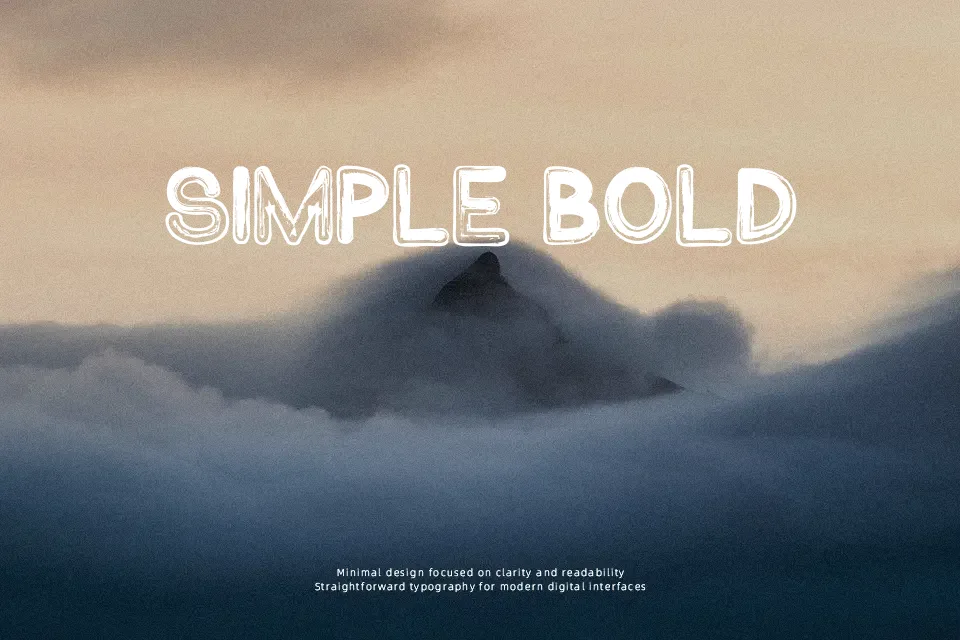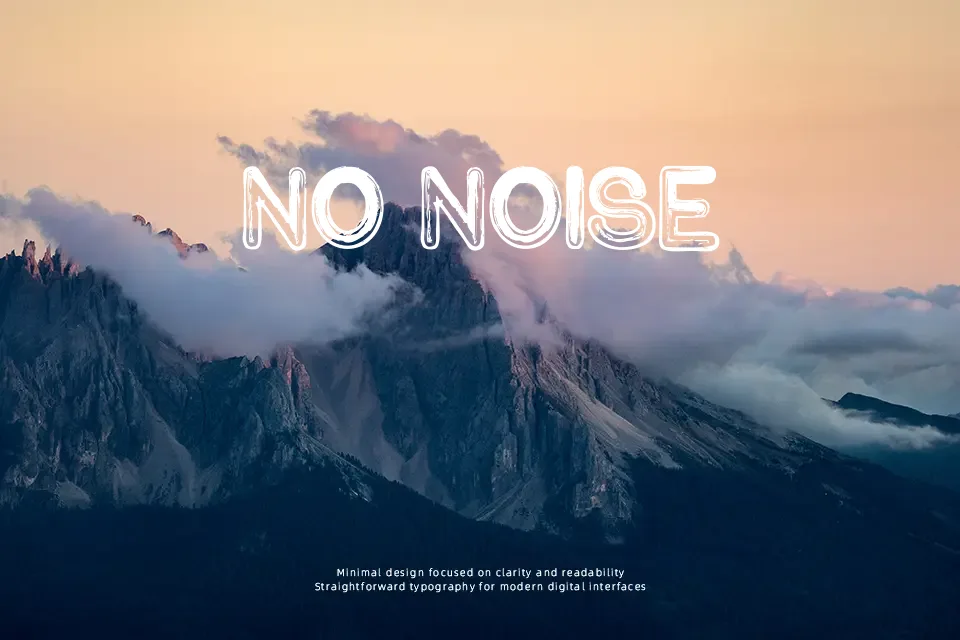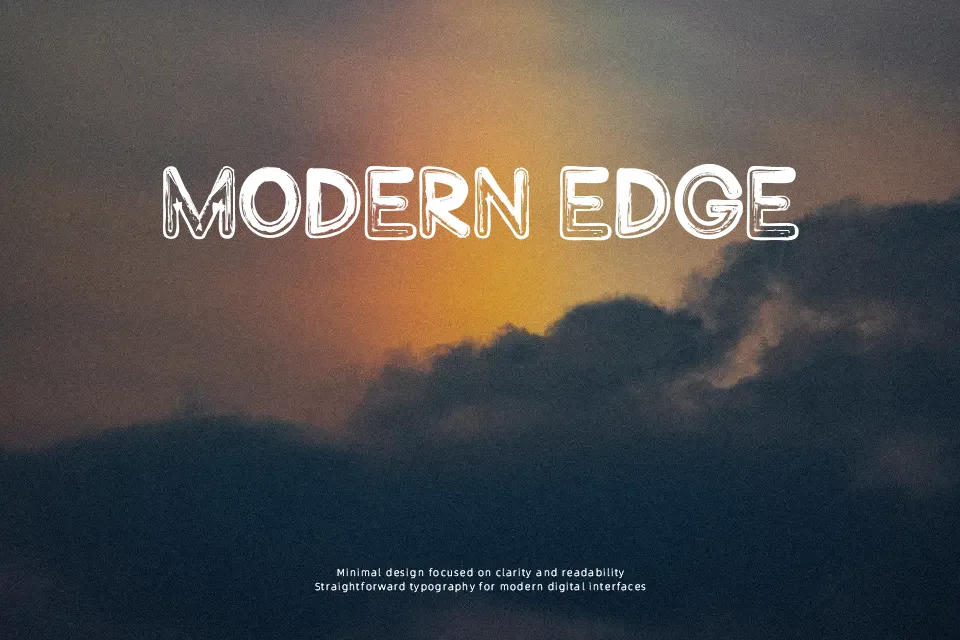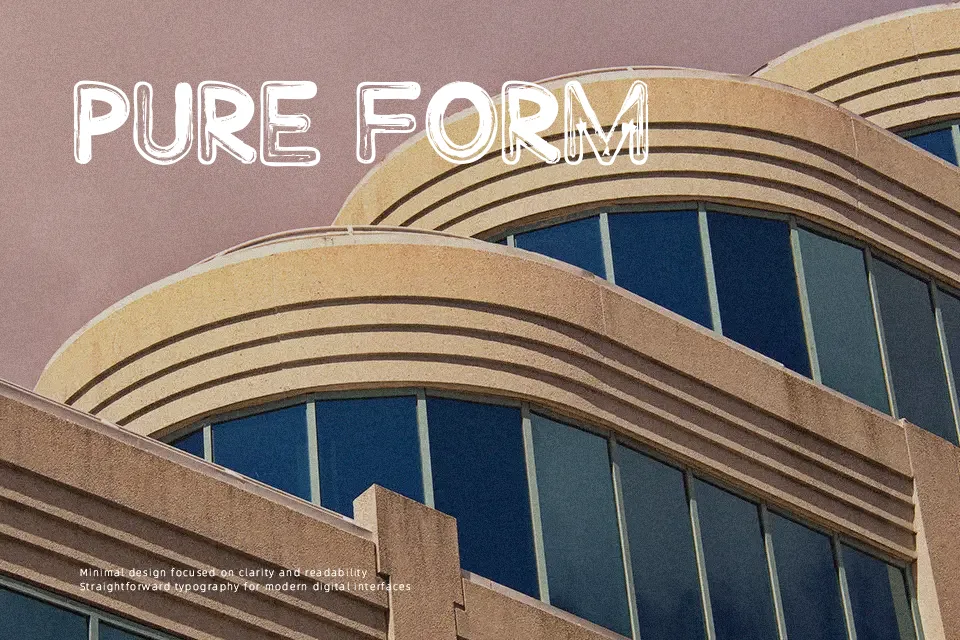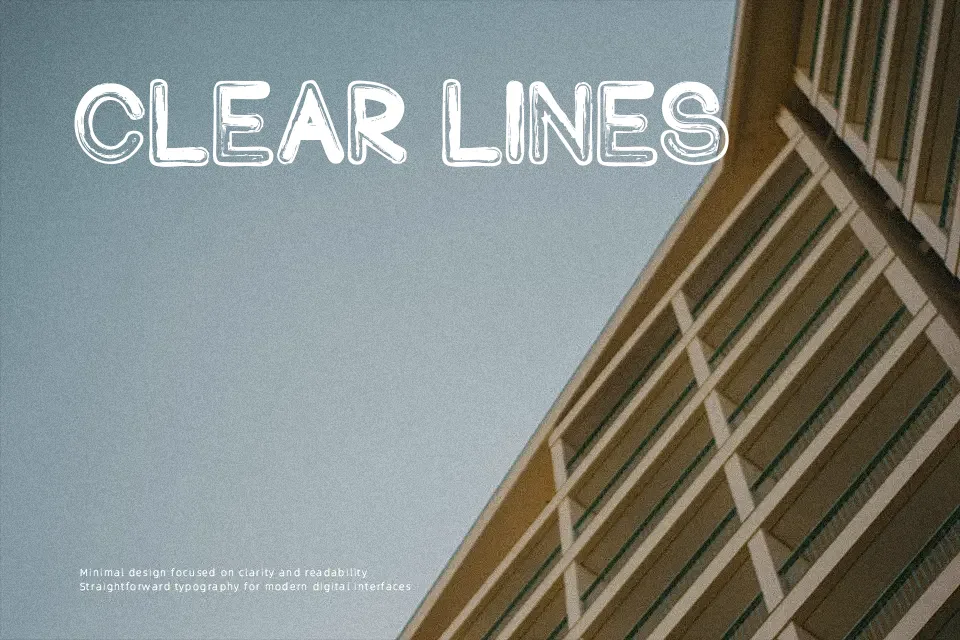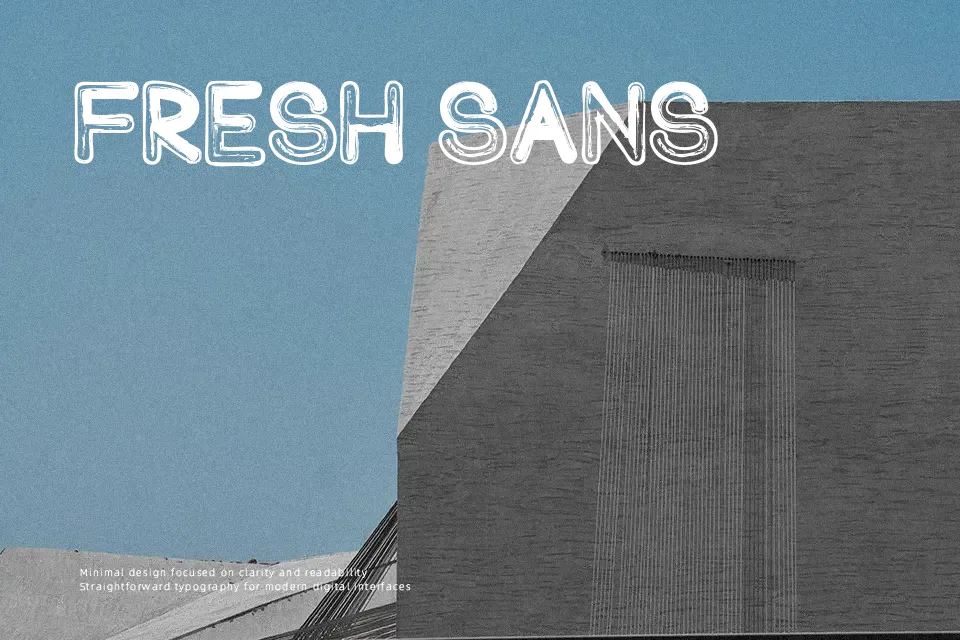
Abduco Font
Rough edges and deliberately degraded strokes define Abduco’s character — each letterform looks like it’s been scraped or acid-burned, giving the typeface a visceral, unsettling texture. It falls squarely in the eroded display category, where visual noise is a feature rather than a flaw. At large sizes on posters or album covers, the distressed quality reads as intentional and punchy. At small sizes, however, legibility breaks down quickly — the erosion detail collapses into visual mud, making it unsuitable for body copy or anything requiring clarity at distance. For designers working on horror event flyers, dark-themed merch, or underground music projects, Abduco delivers atmosphere without needing much typographic finesse. That said, the limited character polish means it works best as a headline accent rather than a typographic system.
Best For:- Horror movie or event poster headlines
– Underground music / band merchandise lettering
– Halloween-themed graphic campaigns
– Dark or grunge-style social media headers
Not Ideal For:- Small-size text or body copy
– Professional corporate or editorial contexts
– Clean UI or web interface typography
– Multilingual layouts requiring extended character support
Perfect for branding, halloween, and headline, with a bold and decorative style.